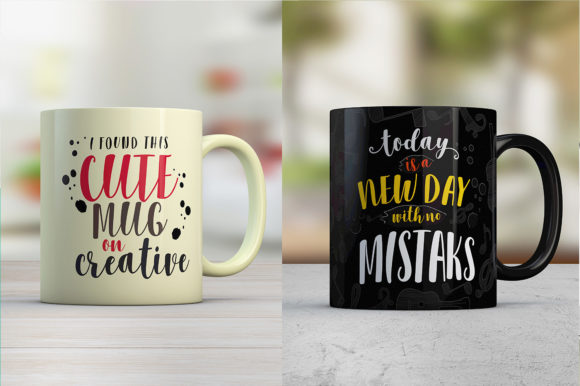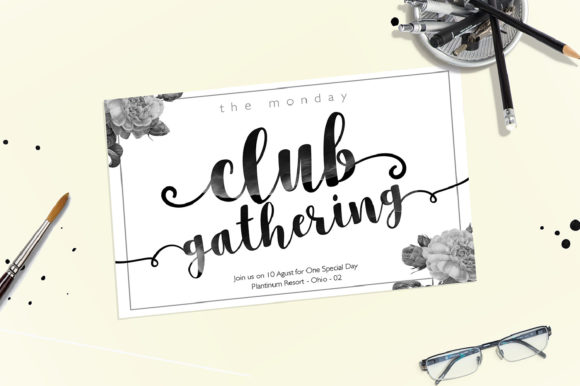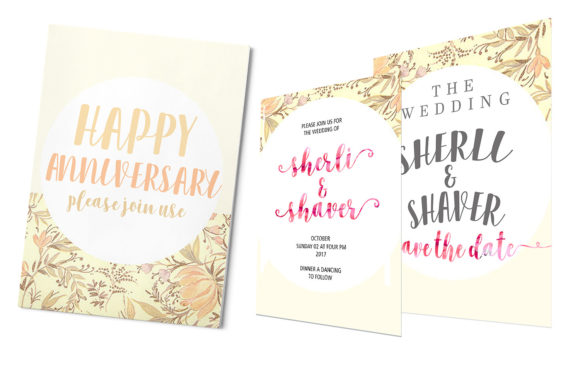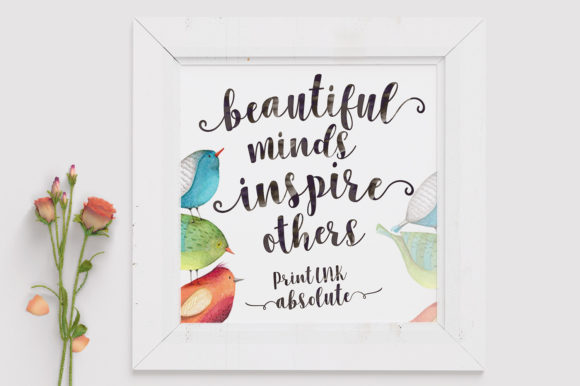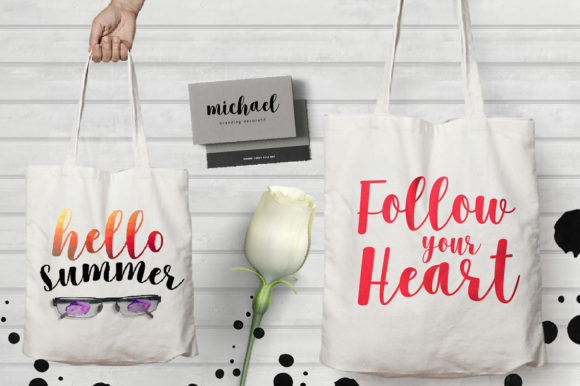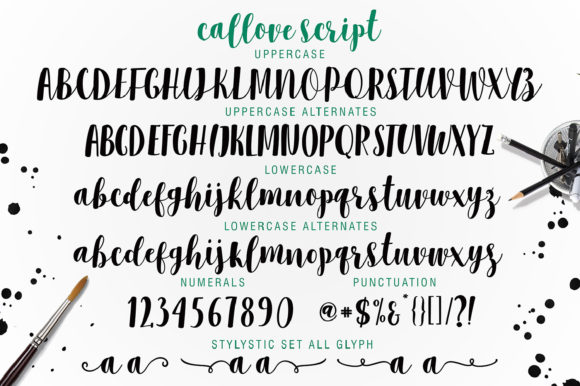
Introduction to Callove Script Font
Have you ever found yourself staring at a blank canvas, searching for the perfect font to bring your creative project to life? The struggle is real, but today we’re about to change that with the introduction of the Callove Script Font, a high-quality design resource that’s sure to take your designs to the next level.
Imagine a font that effortlessly combines a natural, gentle feel with a touch of modern sophistication – a true game-changer for designers looking to add a personal touch to their work. Whether you’re working on a design project with a transparent background or simply need a stylish font to elevate your social media graphics, the Callove Script Font has got you covered.
With its versatility and stylish aesthetic, the Callove Script Font is a valuable asset for designers of all levels, offering endless possibilities for creative expression and innovation.
Key Features of Callove Script Font
- Unique, handwritten style suitable for creative projects and personal use.
- Designed to be versatile and work well in a variety of applications, from logos to invitations.
- Perfect for designers, artists, and crafters looking for a unique and creative touch in their projects.
Honest Review: Callove Script Font
As a designer, I’m always on the lookout for high-quality fonts that can elevate my creative projects. The Callove Script Font is a beautiful addition to my design resource library.
- ✨ Beautifully crafted script letters that add a touch of elegance to any design
- ✨ High-quality font files that ensure crisp and clear text rendering
- ⚠️ Limited character set, which may not be suitable for extended text projects
- ⚠️ May require some adjustments to font size and spacing to achieve optimal readability
Overall, I’m impressed with the Callove Script Font’s potential to add a touch of sophistication to my designs. While it may have some limitations, its high-quality design and free download option make it a valuable resource for designers working on creative projects.
The Callove Script Font is ideal for creative projects such as wedding invitations, social media graphics, and branding materials. Its high-quality design and transparent background make it a versatile resource for any design project.